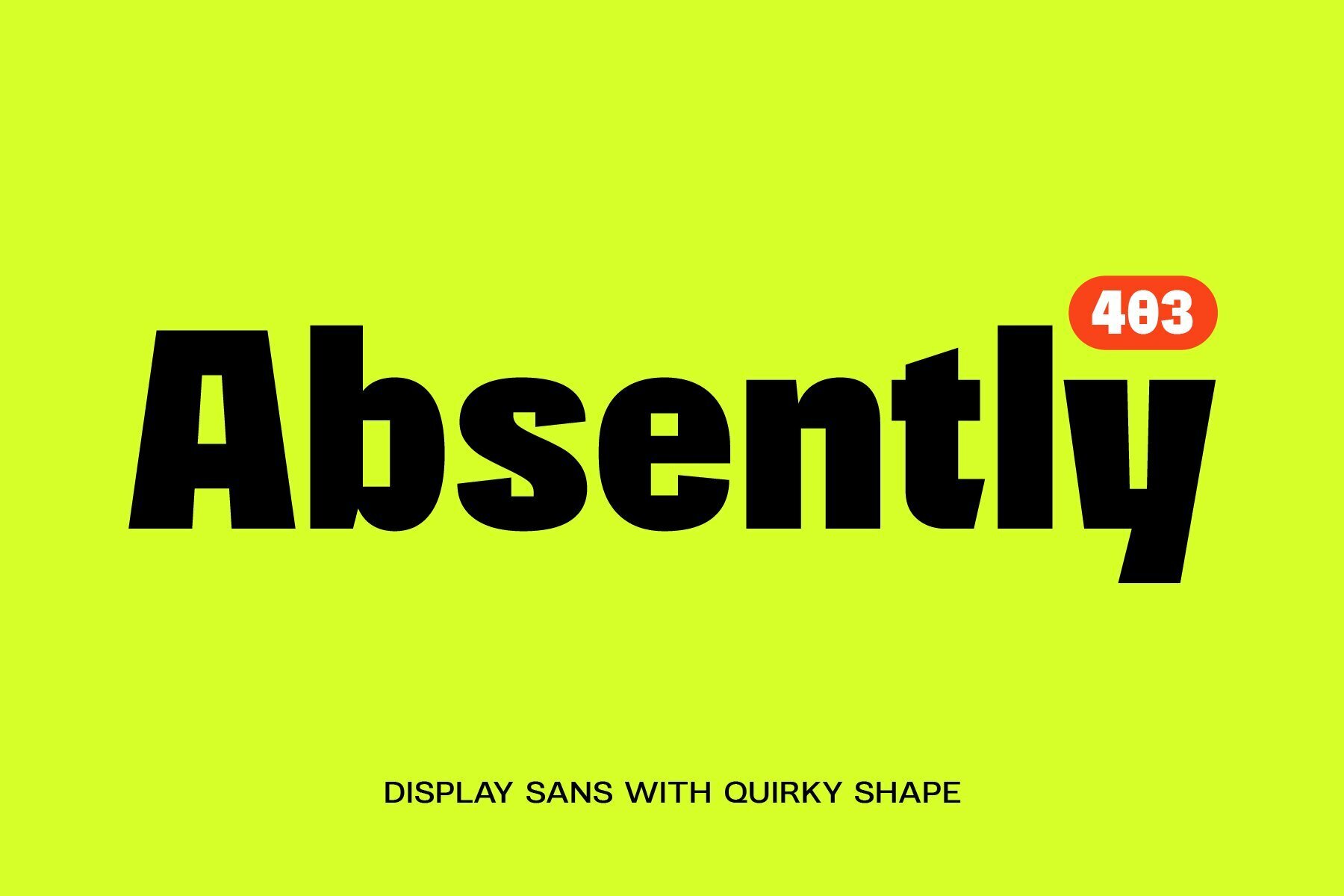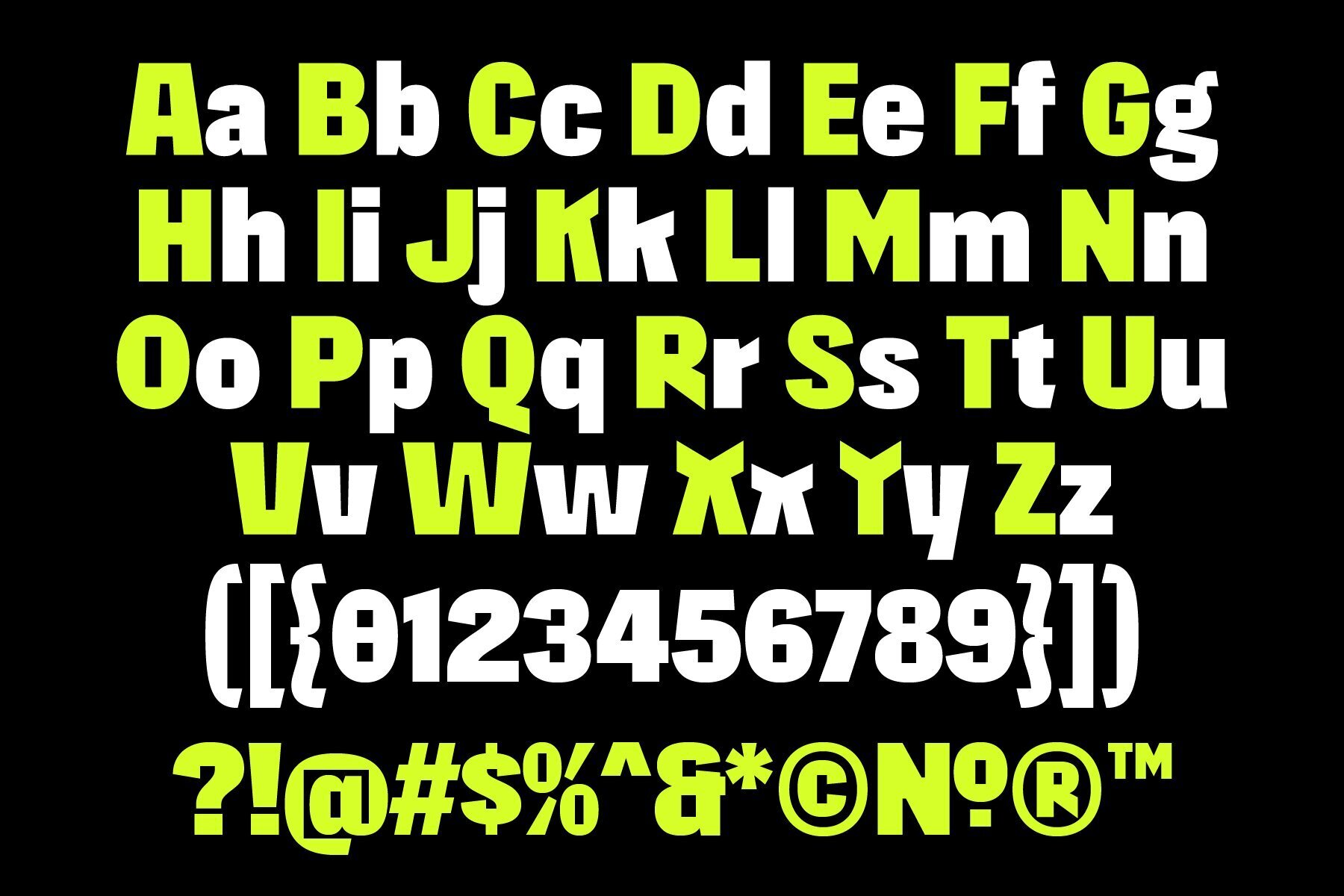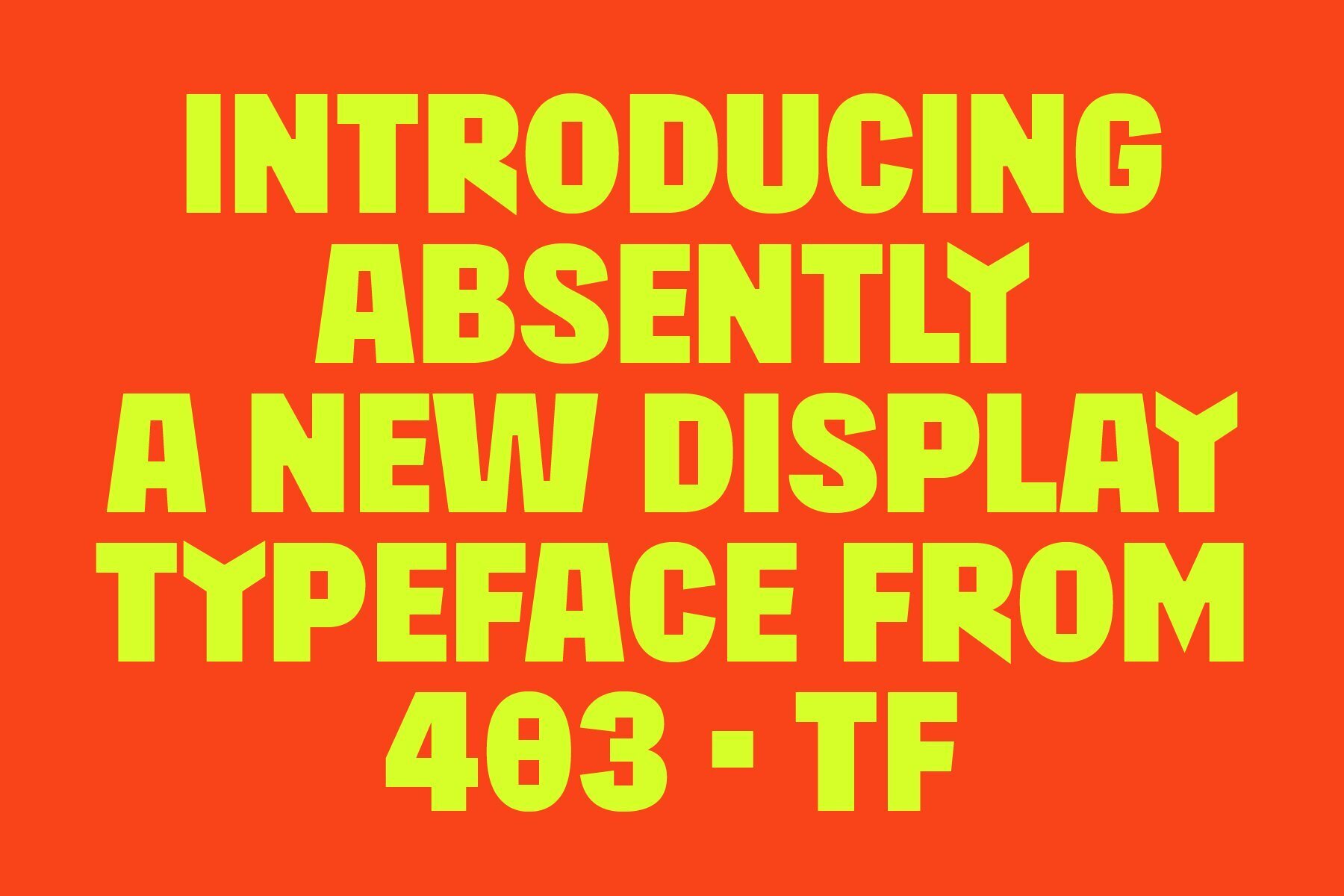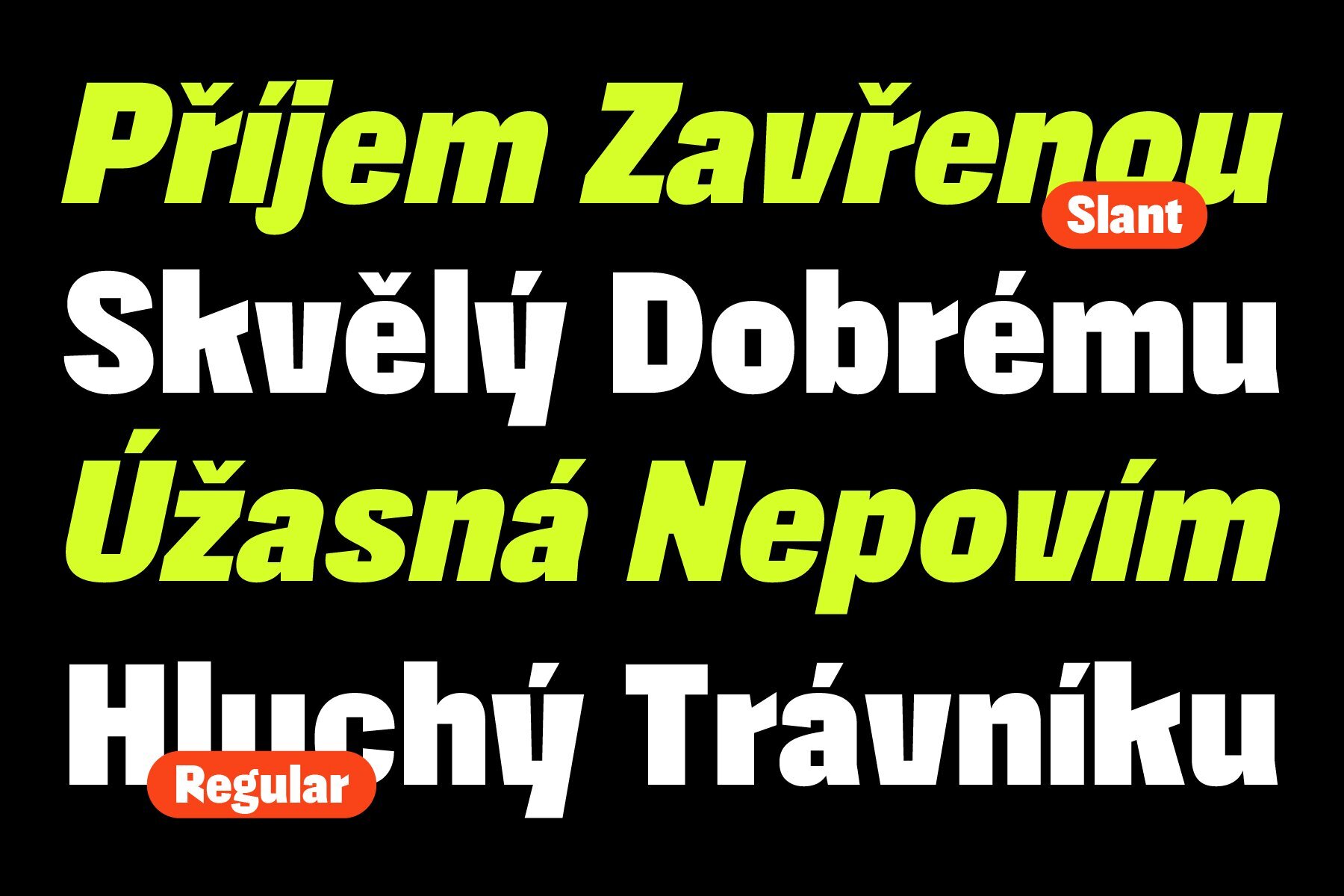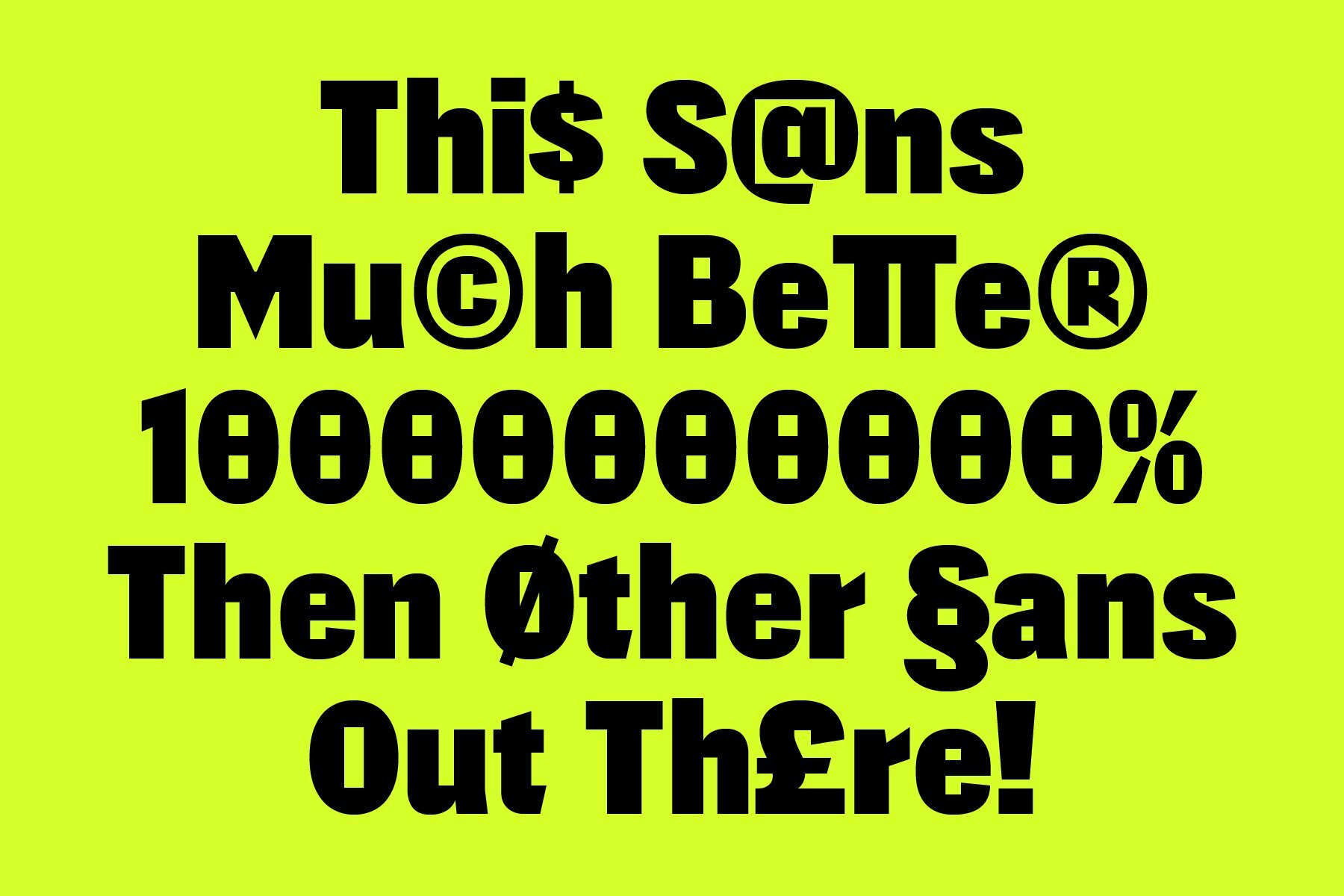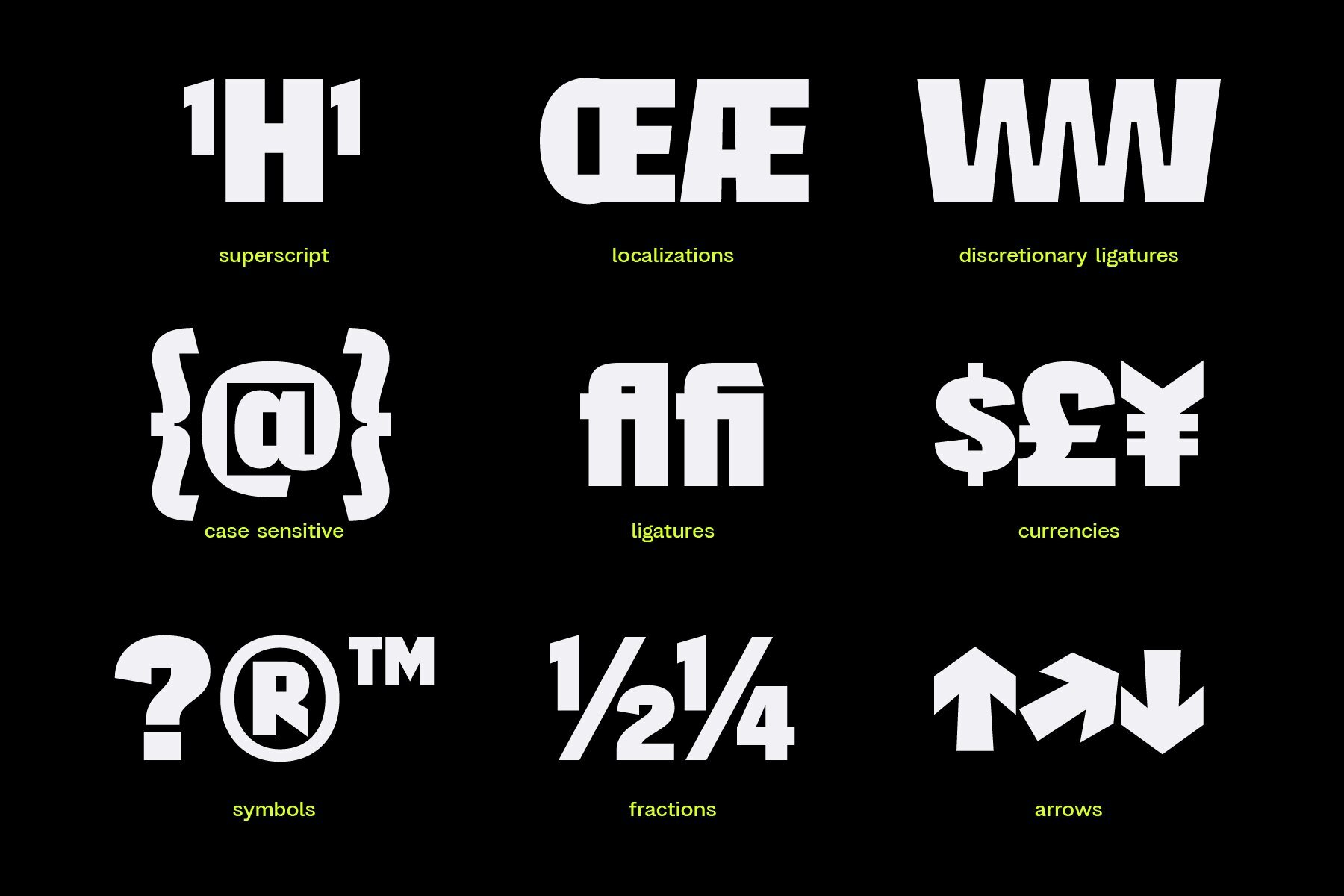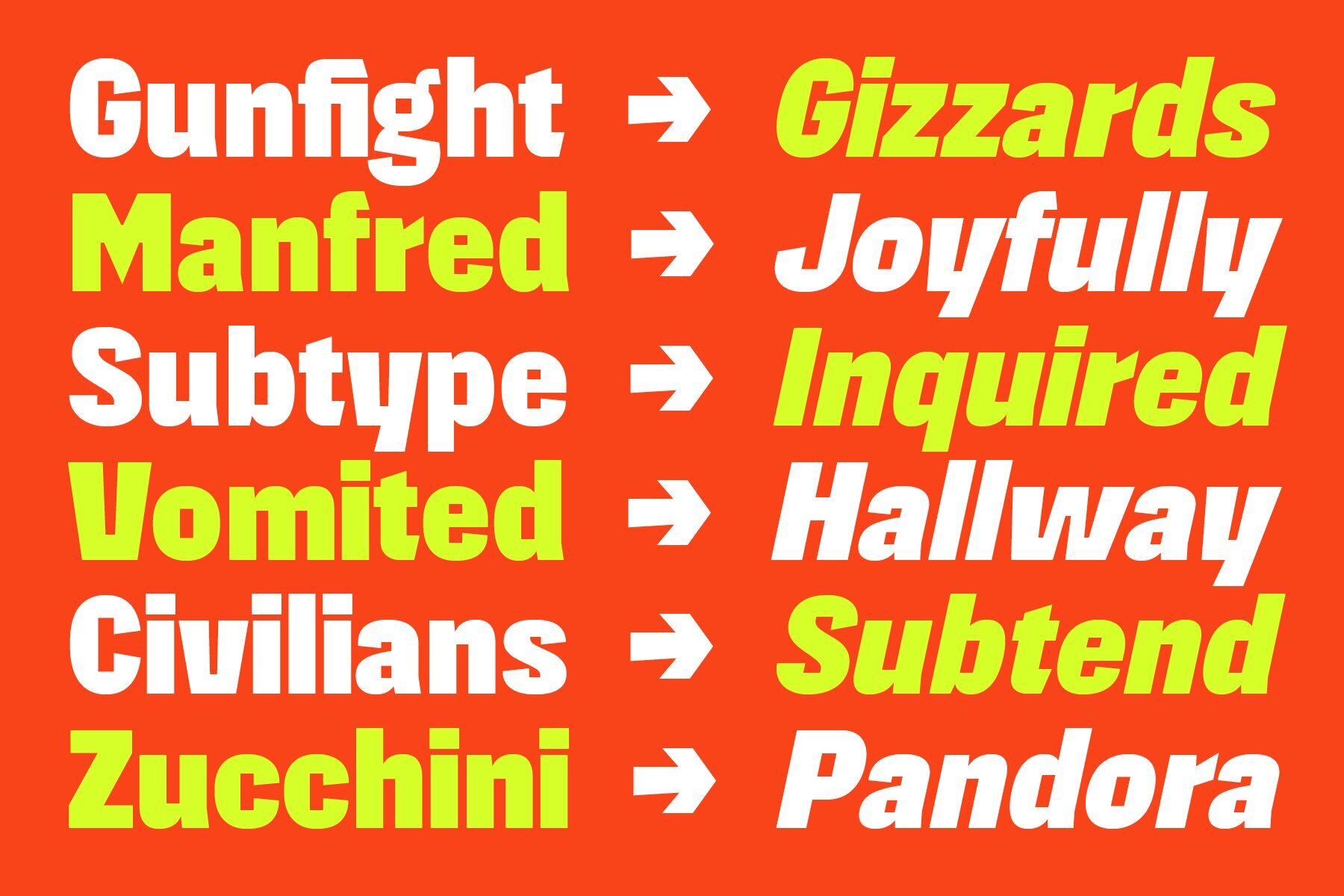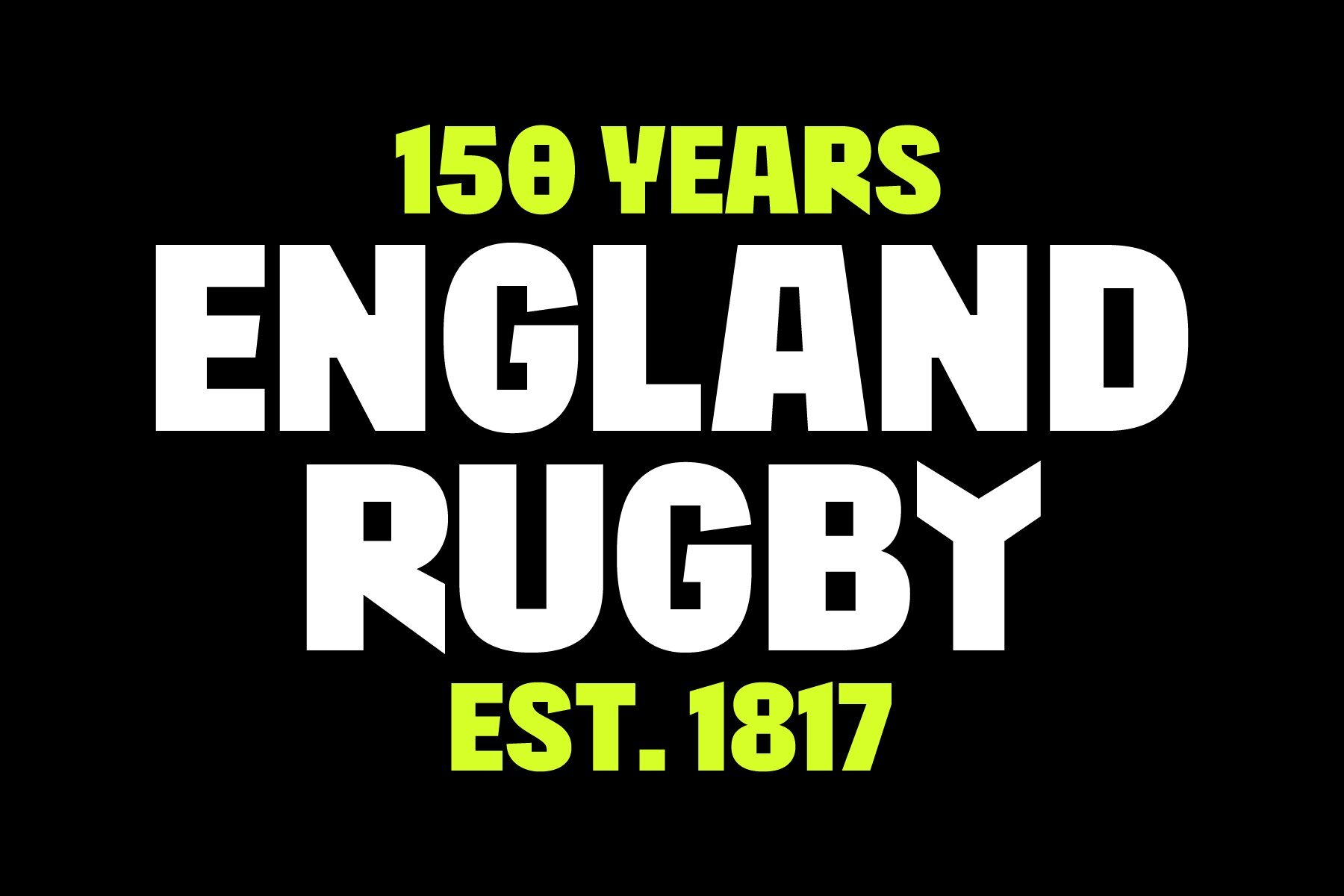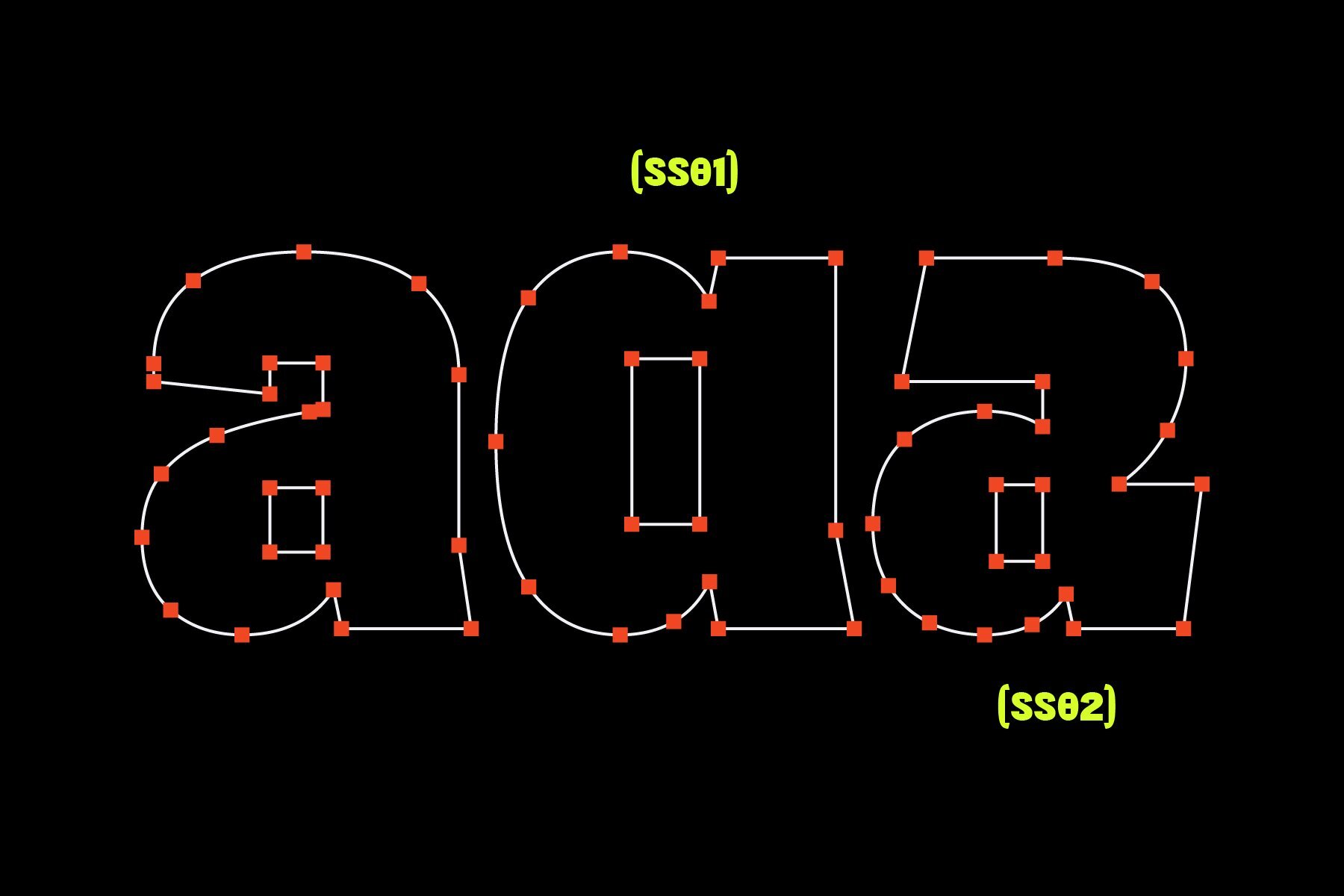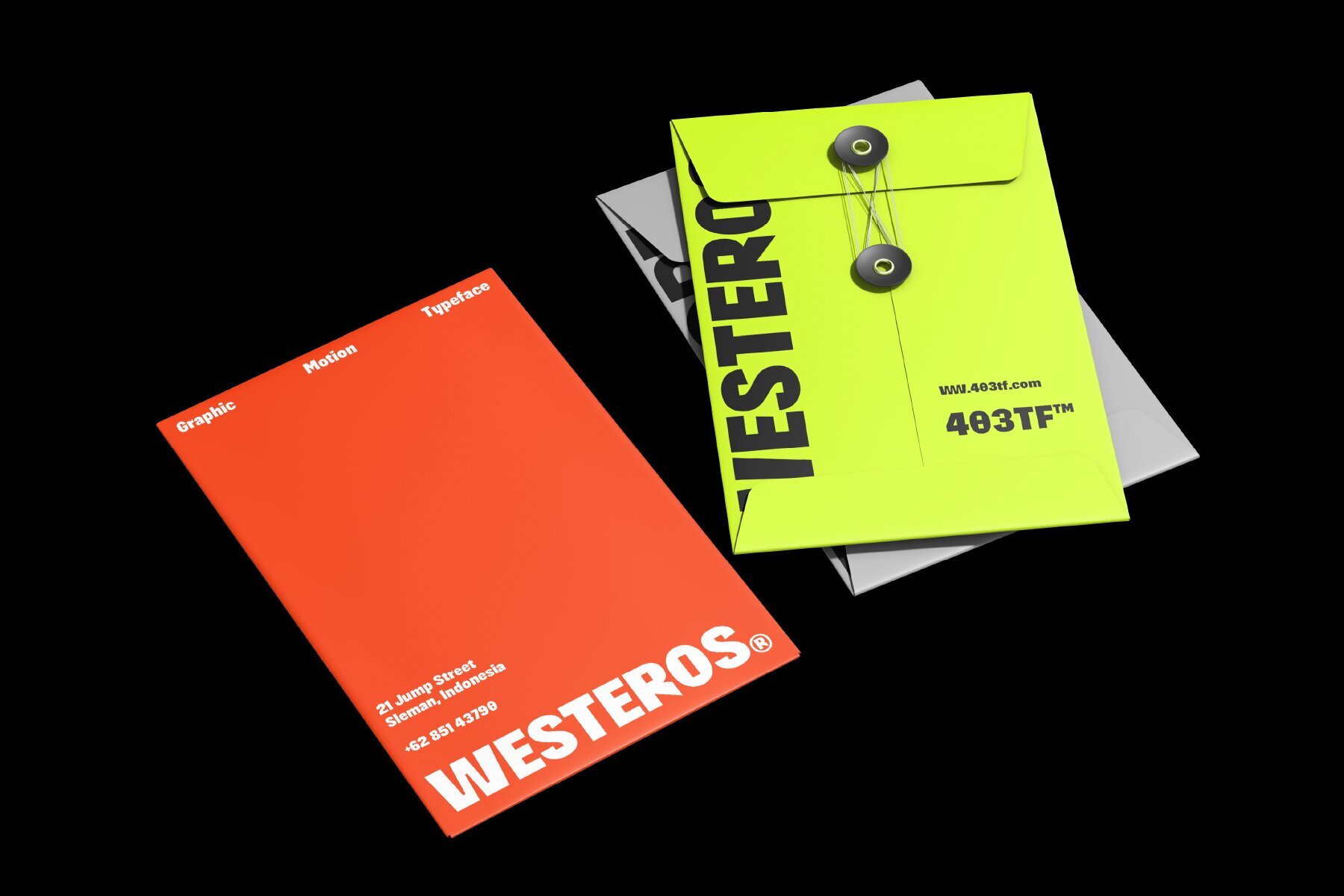
403 Absently Font
403 Absently is a striking display typeface that is geometric, forceful, and incredibly expressive. It is perfect for eye-catching applications like posters, headlines, or branding because of its substantial weight and modular design. Its somewhat compressed lines conjure a retro-modern appeal, reminiscent of mid-century display type modified for modern use, while the geometric shapes give it a modern and structured vibe.